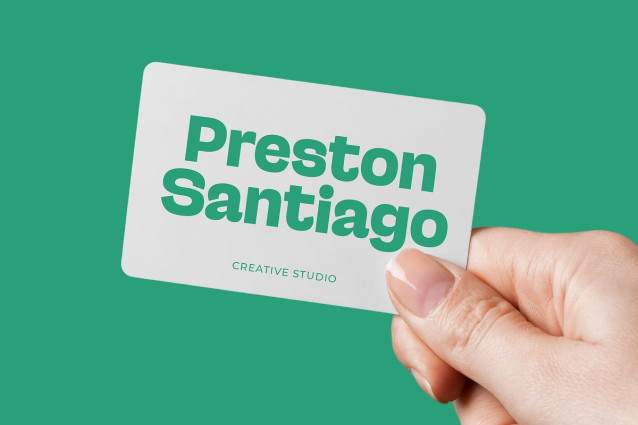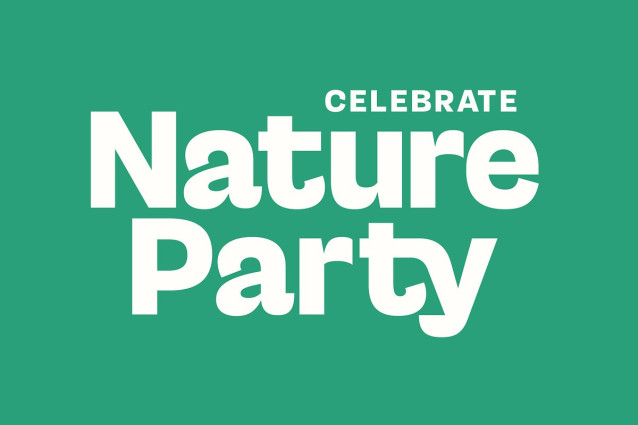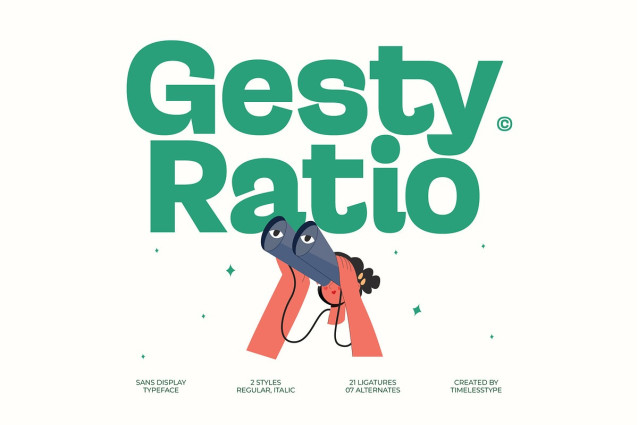
Gesty Ratio Font
Gesty Ratio Font is a bold and friendly sans-display typeface designed with smooth curves, clean geometry, and subtle playful details that make it stand out in modern branding. Its confident letterforms and balanced proportions give your visuals a fresh, approachable tone, perfect for packaging, tech startups, children’s products, social media graphics, and eye-catching headlines. With 2 styles (Regular & Italic), 21 ligatures, and 7 alternates, Gesty Ratio offers flexible typographic expression while maintaining a strong and cohesive visual identity across any project.